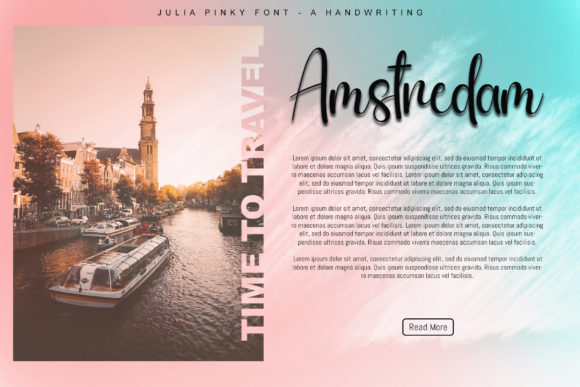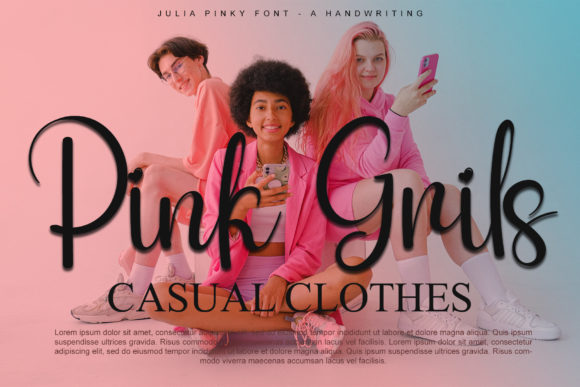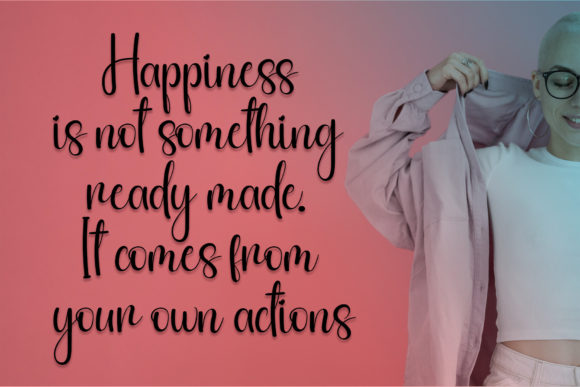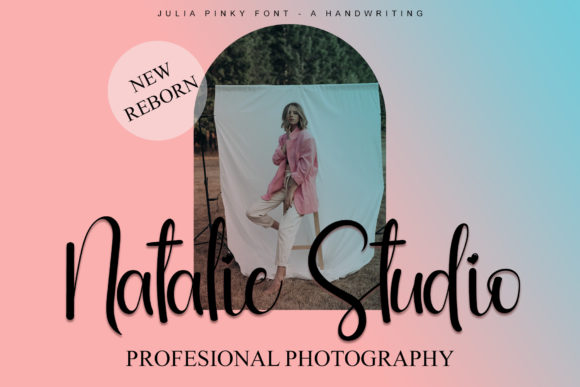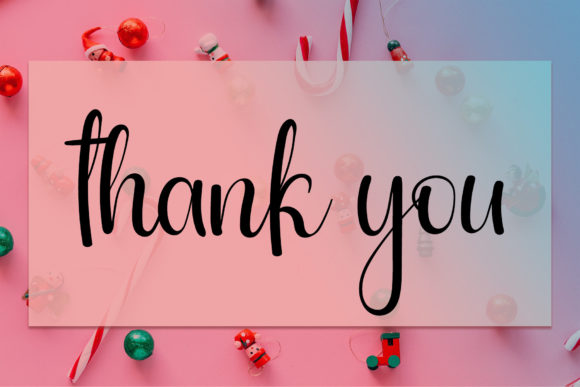
Introduction to Julia Pinky Font
Julia Pinky is a lovely and delicate script font that exudes elegance and class.
This font was particularly crafted for those who need a beautiful and refreshing look to their designs .
Key Features of Julia Pinky Font
Why Choose Julia Pinky Font?
Julia Pinky Font offers exceptional quality and versatility, making it a valuable addition to your design toolkit. Whether you’re creating for personal projects or commercial use, Julia Pinky Font delivers professional results.